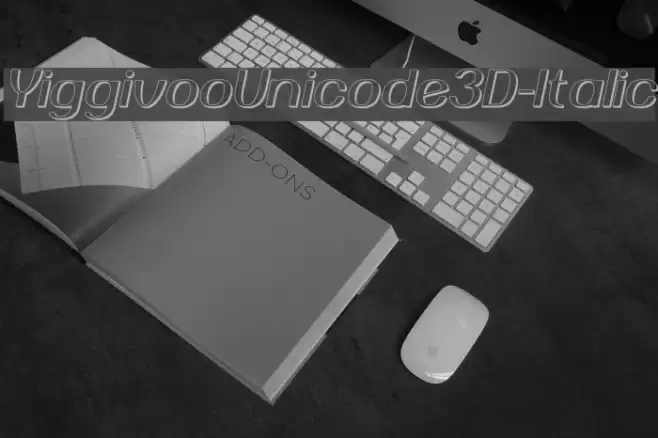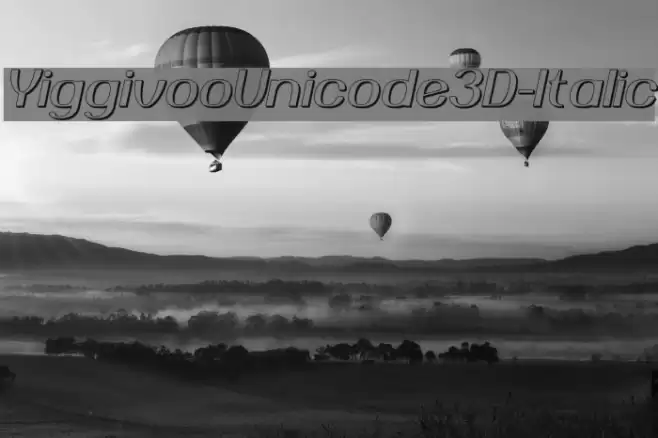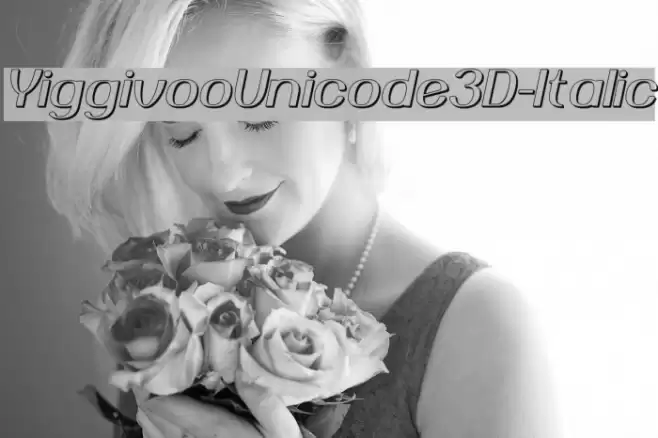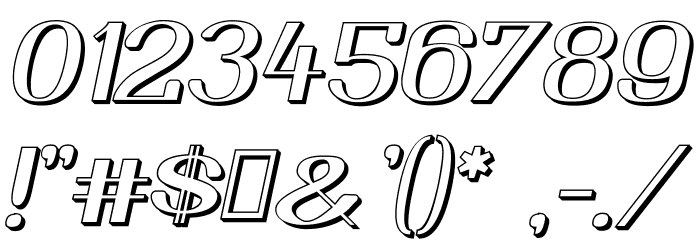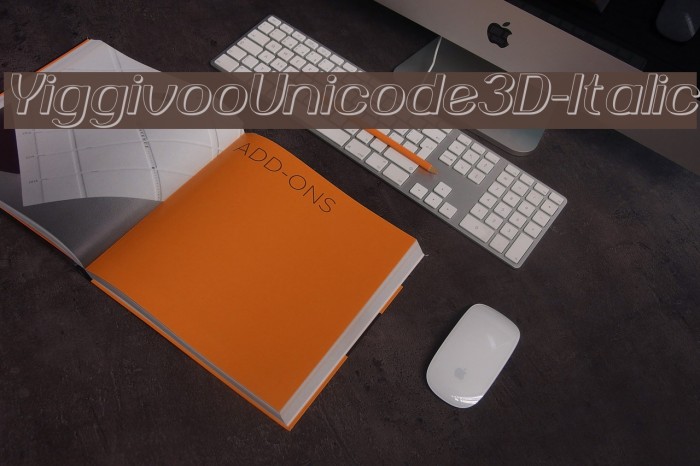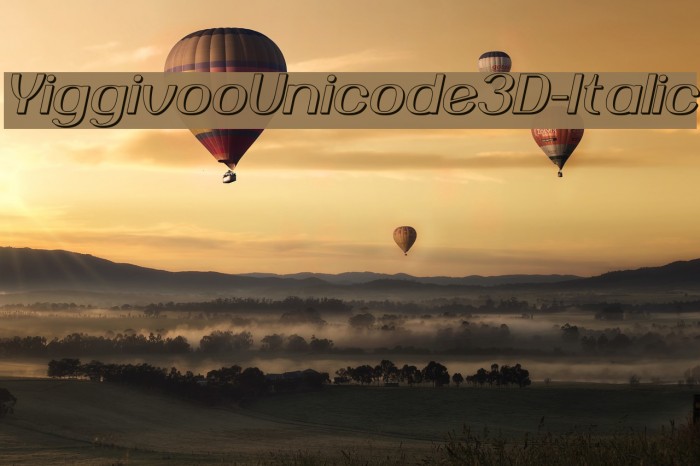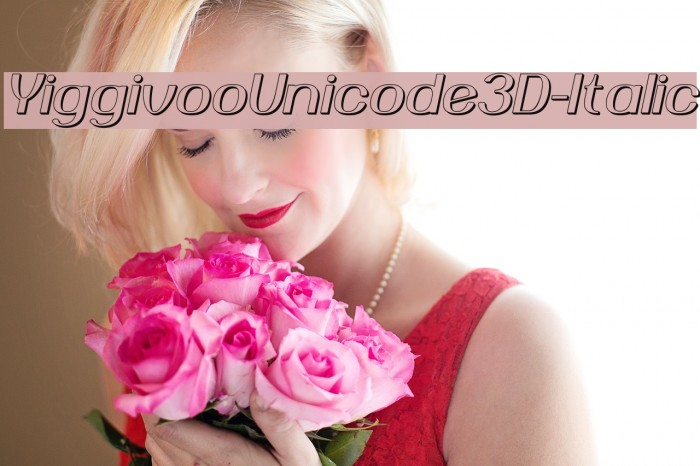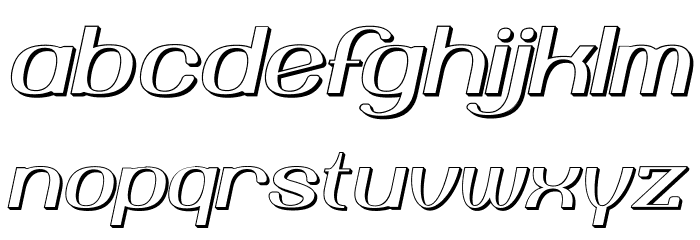
YiggivooUnicode3D-Italic Font
This font features a distinct 3D effect with an italicized style, creating a sense of depth and movement. The characters are outlined, giving them a bold appearance while maintaining a light interior space. This design choice enhances readability and adds a modern, dynamic flair. The uppercase and lowercase letters are consistent in style, with smooth curves and clean lines. Numbers and special characters follow the same design principles, ensuring uniformity across all elements. The font's unique style makes it suitable for creative and eye-catching designs.
A 3D italic font with outlined characters and a modern, dynamic style from Uncategorized fonts.
- Proposed Projects: Ideal for posters, headlines, logos, and any project requiring a bold, modern look.